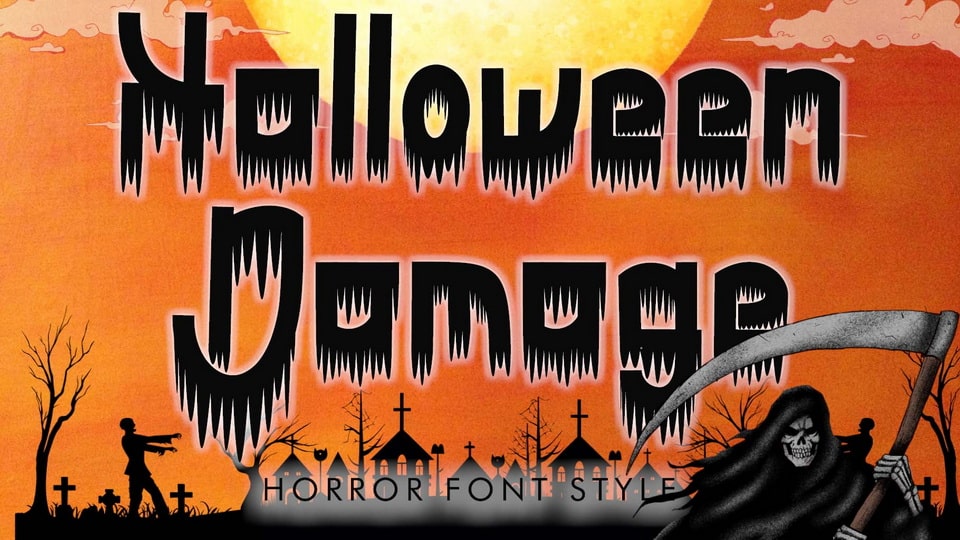
Download Halloween Damage font, a spooky and unique Halloween display typeface. It’s perfect for Halloween, Christmas, horror movie titles, book titles, tattoos, stickers, posters, prints, banners.